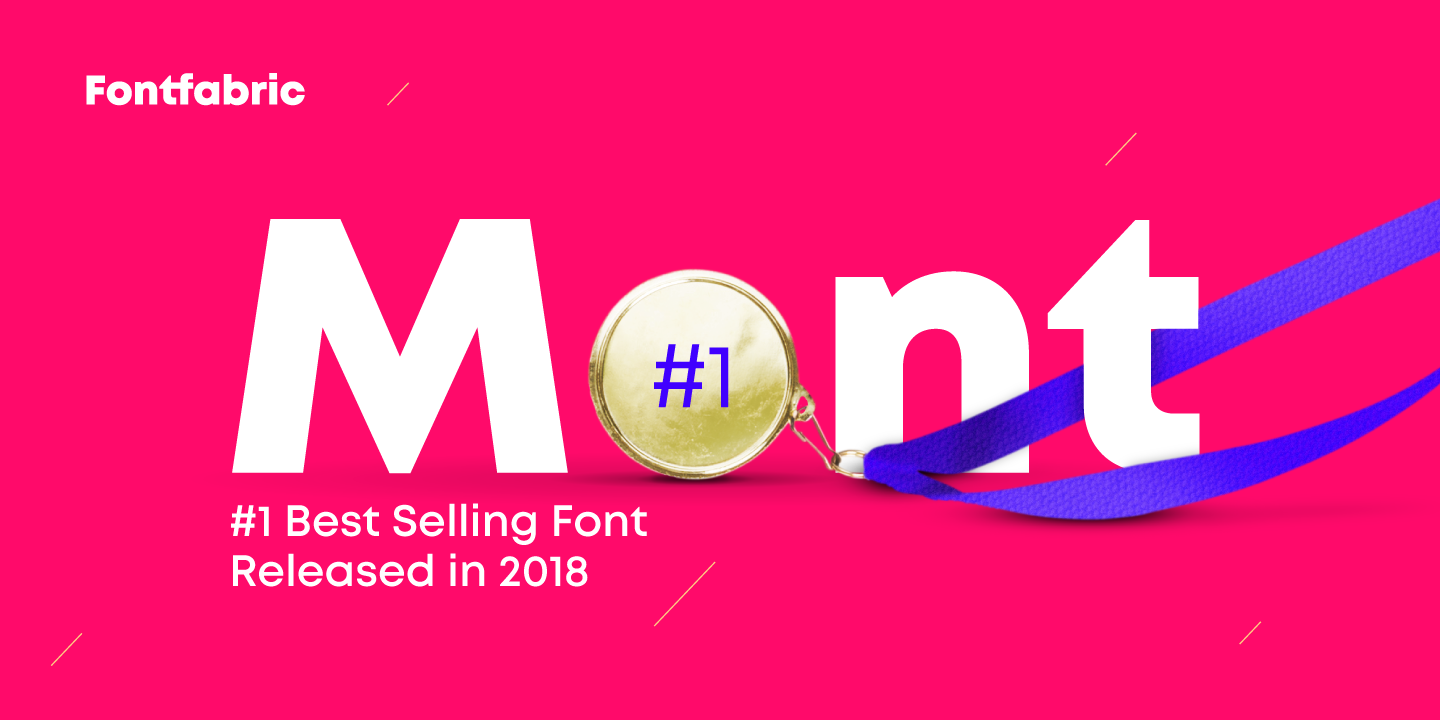
Mont Font Free Download presents designers with a clean, geometric typeface that embodies modern minimalism and contemporary functionality with exceptional versatility. However, for commercial use, you must purchase this font. You can download it for free for testing purposes only.
Mont Font excels in modern design applications including tech startup branding, clean web interfaces, minimalist packaging design, contemporary corporate identities, mobile app typography, architectural presentations, modern signage systems, progressive marketing materials, sleek product documentation, and innovative digital platforms. This streamlined typeface brings clarity and sophistication to forward-thinking projects.
What makes Mont Font truly exciting is its perfect balance of geometric precision with subtle humanist touches that create approachable professionalism. The font features clean, unadorned letterforms with consistent proportions and excellent spacing that ensure superior legibility across all sizes and devices. Its neutral yet distinctive character makes it ideal for brands seeking timeless appeal, technological credibility, and versatile application across diverse digital and print environments.
The Mont Font family encompasses comprehensive weights including Thin, Light, Regular, Medium, SemiBold, Bold, and Black with corresponding Italic variations. These extensive options allow designers to create sophisticated typographic hierarchies that maintain the font's distinctive clean character while providing complete flexibility for complex interface design and multi-platform brand systems.
Whether you're developing technology branding, designing user interfaces, or creating contemporary marketing campaigns, Mont Font Free Download provides the modern clarity and typographic reliability that digital-first projects require. Its exceptional versatility and contemporary appeal make it invaluable for designers working with tech companies, modern brands, and progressive organizations requiring clean typography that performs beautifully across all platforms while maintaining professional credibility and user-friendly accessibility.